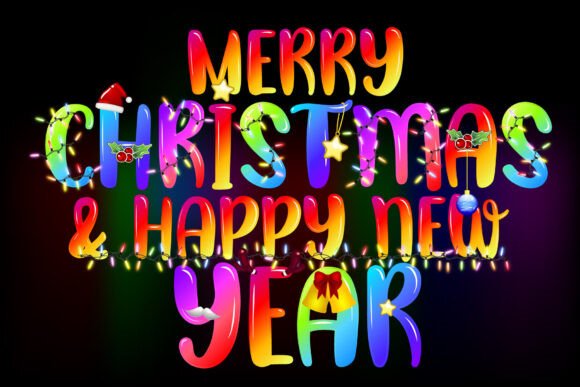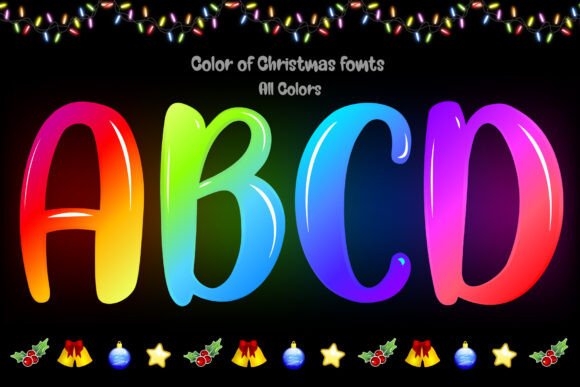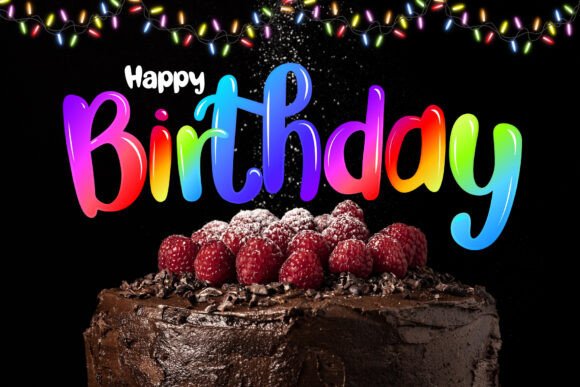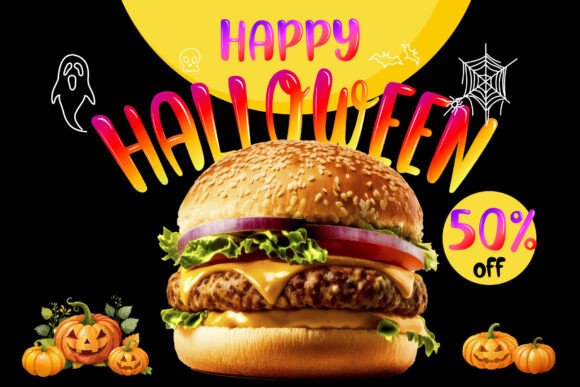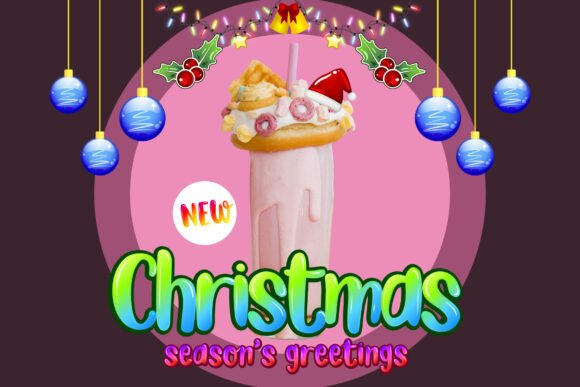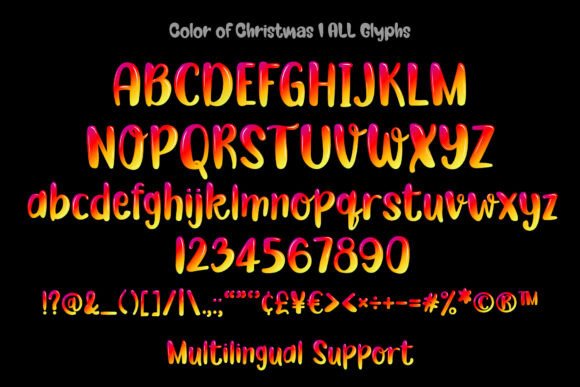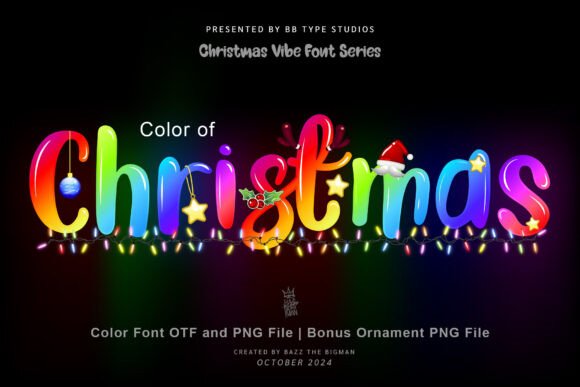
Step into the Holiday Spirit with the ‘Color of Christmas’ Font
The ‘Color of Christmas’ font is here to bring festivity and joy to all your Christmas-inspired creations. This charming and vibrant font is designed to transform every t-shirt, craft, and card into a captivating masterpiece. With its enchanting allure, ‘Color of Christmas’ instantly brings your projects to life, making it the perfect addition to your holiday design collection.
What Makes ‘Color of Christmas’ So Special?
The ‘Color of Christmas’ font is more than just a festive typeface. It’s a versatile design tool that can elevate your holiday projects to new heights. Whether you’re a designer, crafter, or DIY enthusiast, this font offers endless possibilities for creative expression. From eye-catching t-shirts and posters to beautiful cards and invitations, ‘Color of Christmas’ is the perfect choice for anyone looking to add a touch of holiday magic to their designs.
The ‘Color of Christmas’ font comes in two versions: black and color. The black version is compatible with popular cutting machines like Cricut Design Space, making it easy to use for crafters and DIY enthusiasts. However, the color version has some specific requirements.
Bringing Your Designs to Life with ‘Color of Christmas’
With the ‘Color of Christmas’ font, you can add a pop of color and festivity to any design project. Imagine creating stunning holiday cards, posters, and invitations that capture the essence of the season. This font is perfect for:
- Festive posters and flyers
- Custom t-shirts and apparel
- Crafts and DIY projects